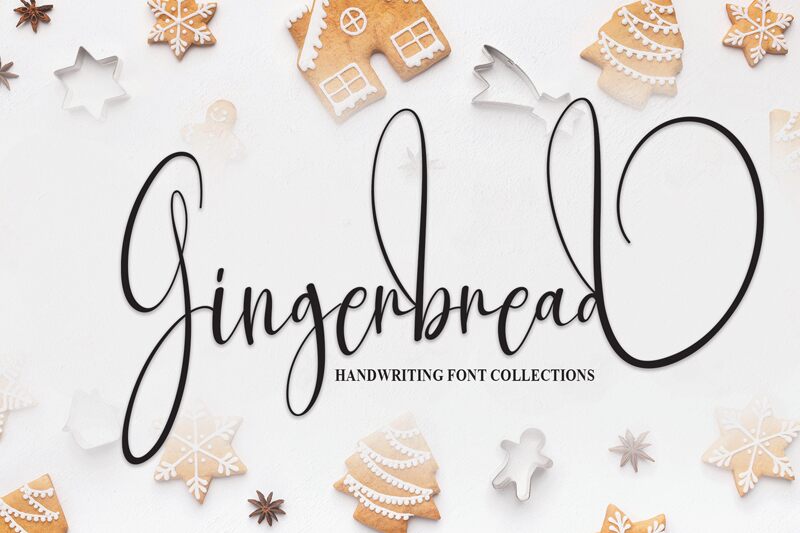
Gingerbread
Gingerbread is a stunning calligraphy font designed by scratchones. Its extra-light weight beautifully showcases the intricate details of each letterform, making it perfect for elegant and delicate projects such as wedding invitations, greeting cards, and stationary. This font typeface is highly versatile and can add a touch of sophistication to various design projects, including logos, branding materials, and packaging. The whimsical nature of Gingerbread makes it ideal for playful designs such as children's books or festive holiday-themed graphics. With its graceful strokes and timeless appeal, Gingerbread is sure to elevate any project to new heights.
the latest style letters are perfect for wall displays, wedding invitations, social media post logos,
advertisements, product packaging, product designs, labels, photography, watermarks, invitations, stationery,
and any project that requires taste handwriting.